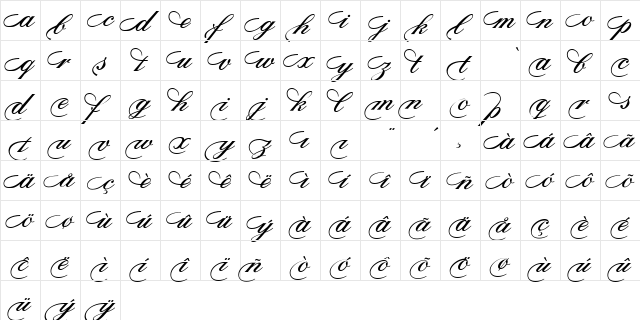
Sterling Script Beginnings Regular
Design Context for Sterling Script Beginnings Typeface
Sterling Script Beginnings flows with the natural rhythm of handwritten lettering, making it ideal for designs that call for warmth and personal expression.
Font Pairing: Combine Sterling Script Beginnings with a simple geometric sans for maximum contrast — the tension between flowing curves and clean structure is a classic typographic pairing.
Pro Tip: Pair Sterling Script Beginnings with a clean sans-serif for supporting text. The contrast between fluid script and geometric structure creates an elegant typographic hierarchy.